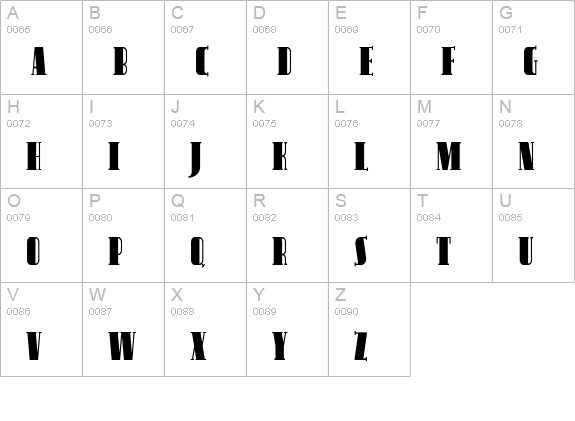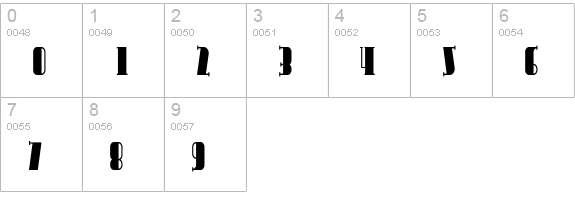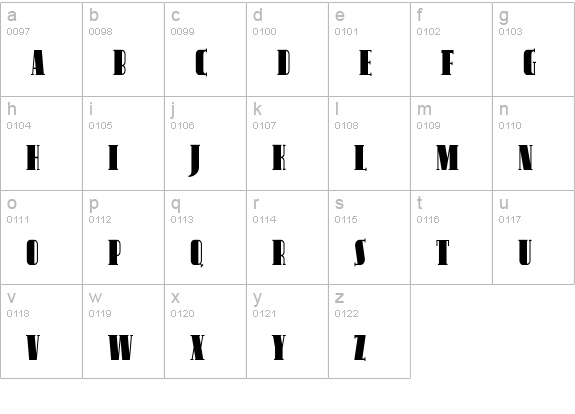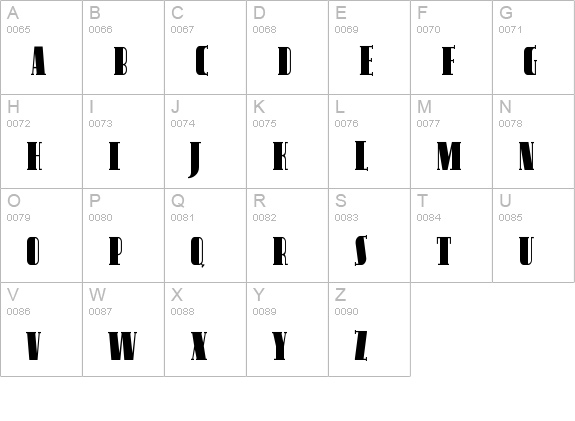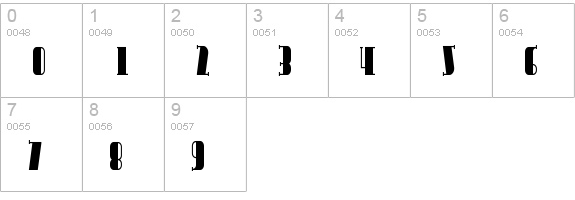
Avondale SC Cond is a distinctive, condensed-width variant in the Avondale typeface family \xE2\x80\x94 well suited to design and typography projects.
Avondale SC Cond font is a modern and stylish typeface that exudes elegance and sophistication. Its condensed style makes it perfect for creating eye-catching headlines, titles, and branding materials. The sleek lines and sharp edges of Avondale SC Cond give any design a sleek and contemporary look. What sets Avondale SC Cond font apart is that it is not only visually striking but also completely free to use. Whether you're a designer working on a commercial project or a student looking to enhance your assignments, this font is a valuable addition to your font library. You can easily download Avondale SC Cond for free at FontsMarket.com. Take advantage of this opportunity to elevate your designs with this versatile and stylish typeface.